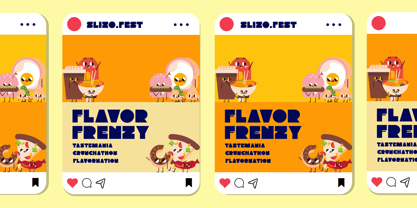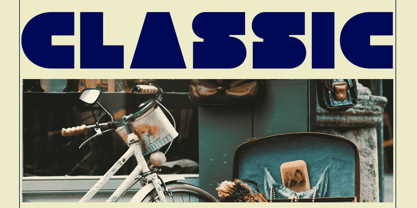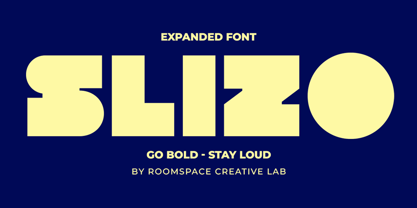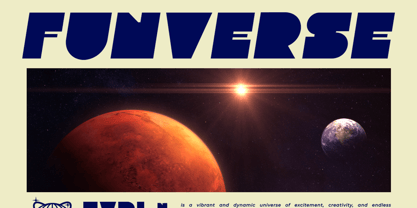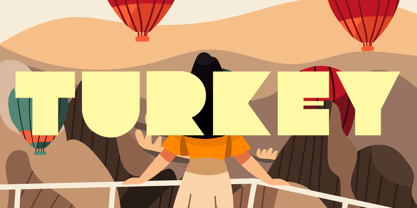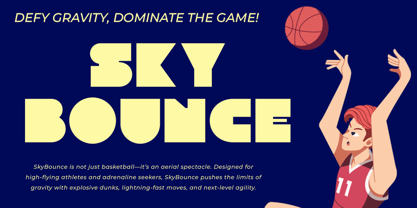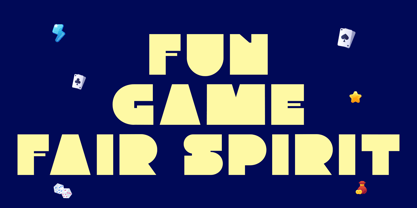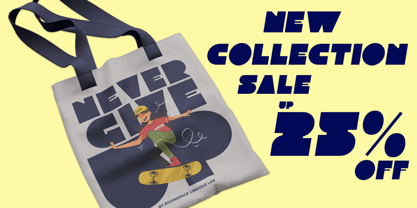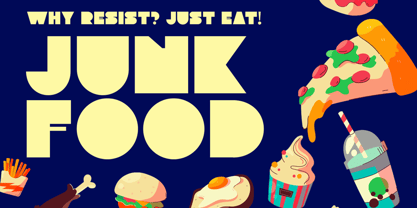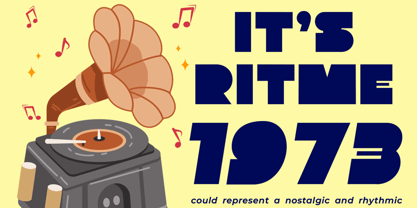
Slizo
The Slizo Font Family was designed by Bakhrudin Ja'far and published by Jafar07. Slizo contains 2 styles and family package options. More about this family
Slizo, a bold expanded display font with a striking geometric style. Designed to stand out, Slizo is perfect for projects that demand attention whether it’s branding, posters, album covers, sports designs, or futuristic layouts. With its strong and wide letterforms, Slizo gives a powerful and modern aesthetic, making it a great choice for streetwear branding, tech visuals, or any creative project that needs bold typography.